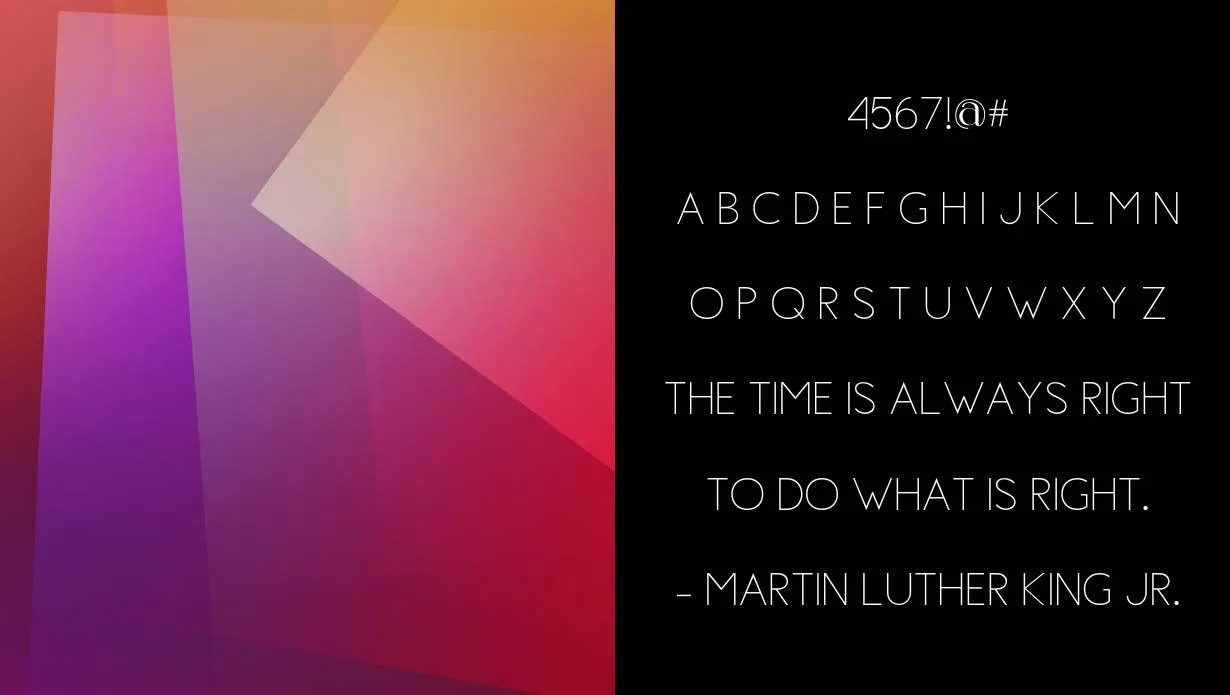
In this post, we introduce a new typeface that earns massive fame in the design industry named Cinnamon Font. This classy typeface was designed by Andriy Dykun. It belongs to the Gothic font family. The main aim of this typeface is to provide an elegant look to the text.
This classy font has unique features as it comes in two styles, Regular and Bold. It supports Latin, Cyrillic, and Greek languages. For more classic and outstanding features use lifecraft font which is an alternative to this one. Its glyphs are available in both uppercase and lowercase characters.
Cinnamon Font Family
| Name | Cinnamon Font |
| Designer | Andriy Dykun |
| Style | Gothic |